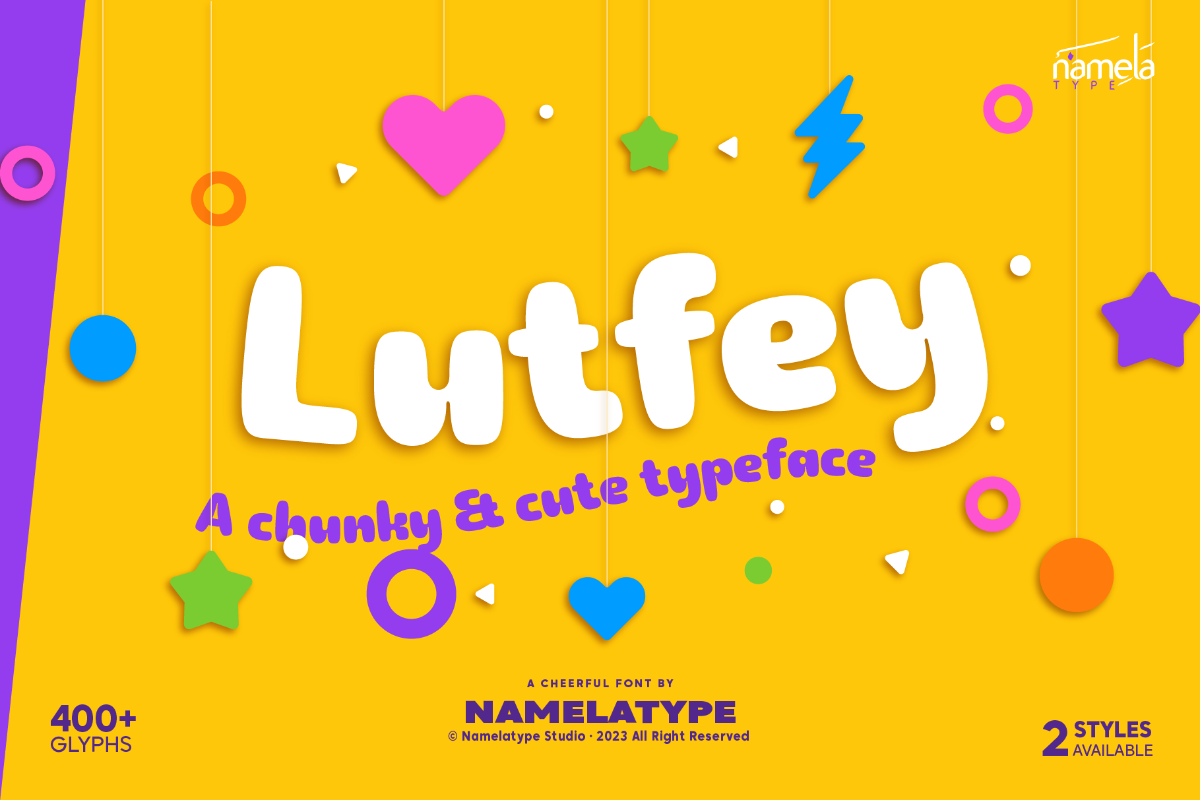
Lutfey Solid
Lutfey Font - A Chunky Display Typeface for Playful Design, ePub The most effective playful typefaces don’t just look fun—they feel approachable. Lutfey from Namelatype achieves that rare balance: a chunky display font with real visual weight that never turns harsh or overwhelming. Its thick, solid letterforms carry presence and energy, while smooth outer edges and subtle ink traps keep every character warm, friendly, and full of personality. For branding, packaging, children’s design, and any